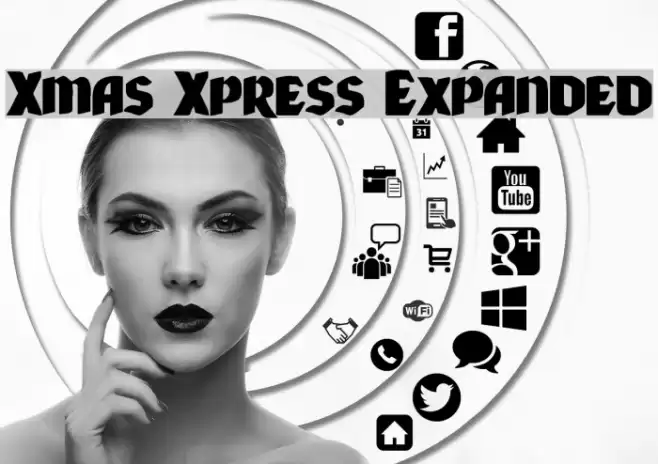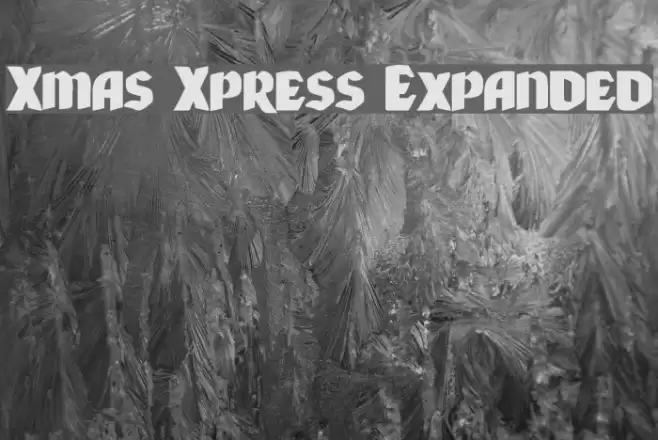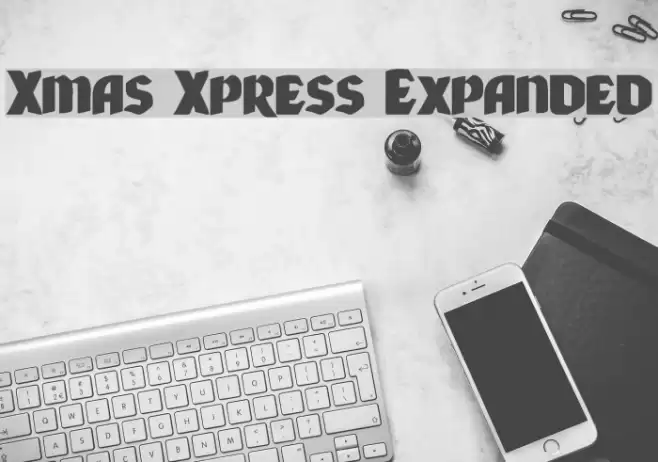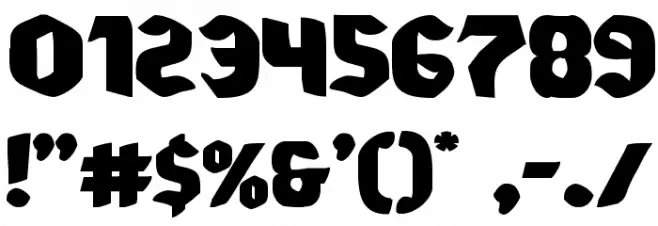
Xmas Xpress Expanded Font
Xmas Xpress Expanded Description
This font features a bold and playful design, characterized by its chunky and robust letterforms. The strokes are thick and uniform, giving it a strong presence. The edges are slightly rounded, adding a touch of softness to the otherwise bold appearance. The font has a festive and decorative style, making it ideal for holiday-themed projects. It includes both uppercase and lowercase letters, numbers, and a variety of special characters. The overall design is eye-catching and perfect for creating a cheerful and lively atmosphere.
A bold, festive font with chunky, rounded letterforms from Uncategorized fonts.
- Proposed Projects: Ideal for holiday cards, festive banners, party invitations, and seasonal advertisements.
- Overall Style: Festive, Playful